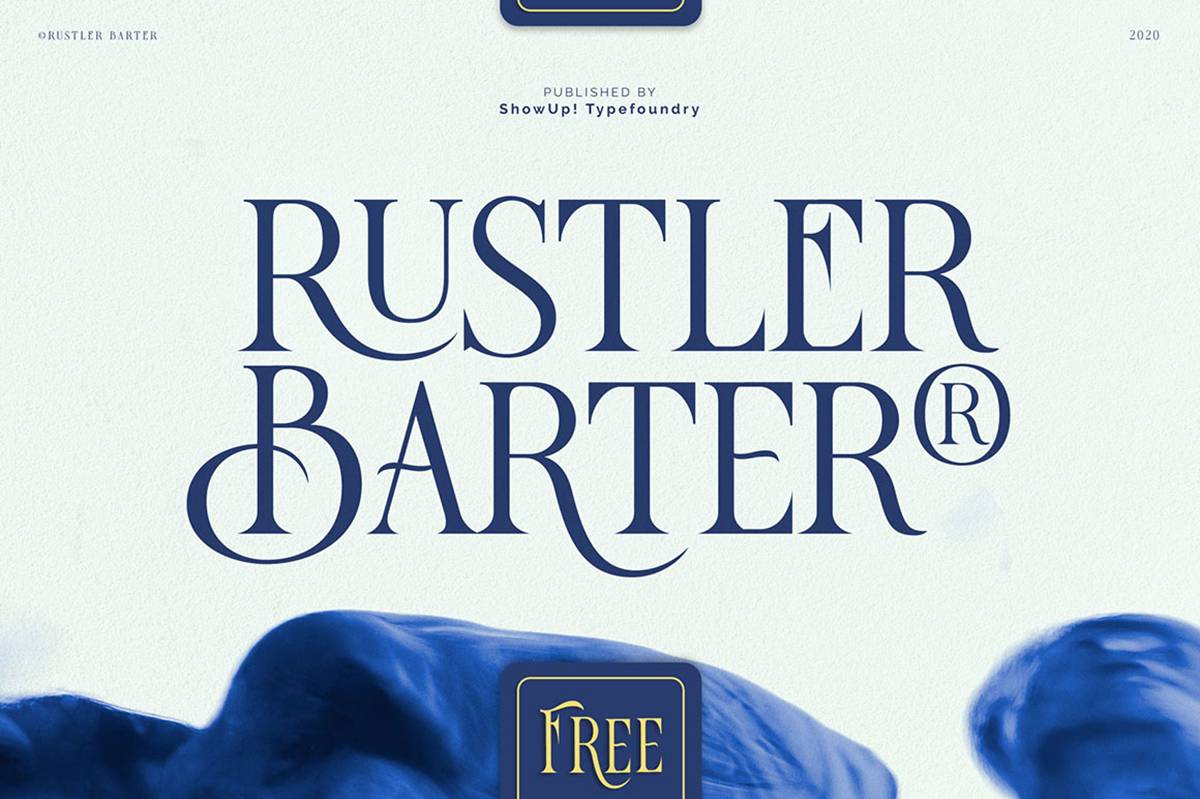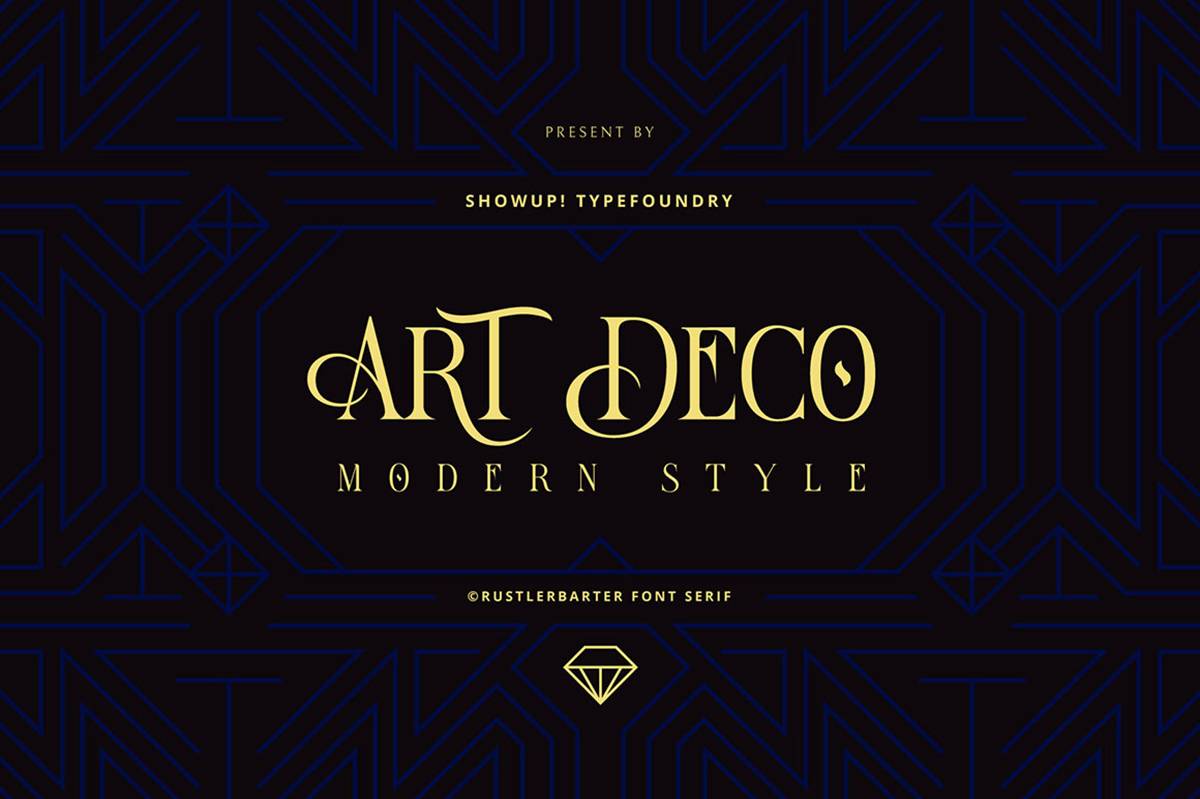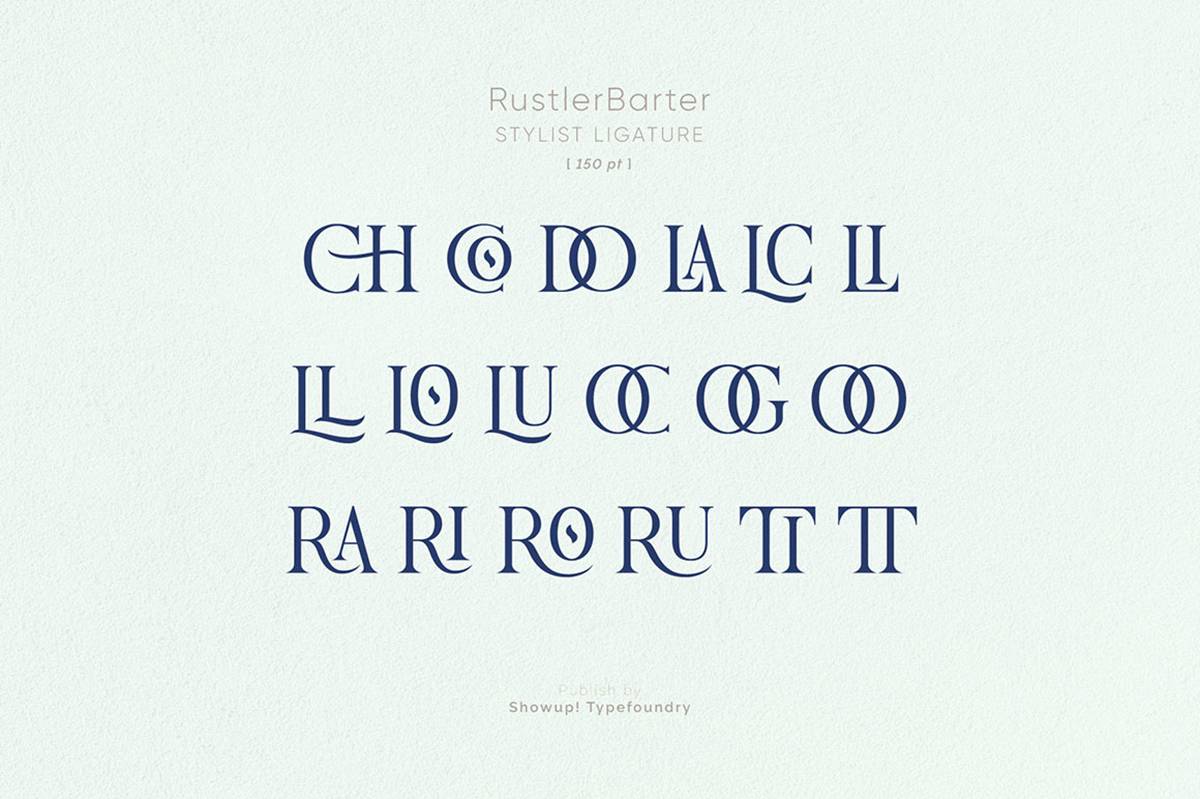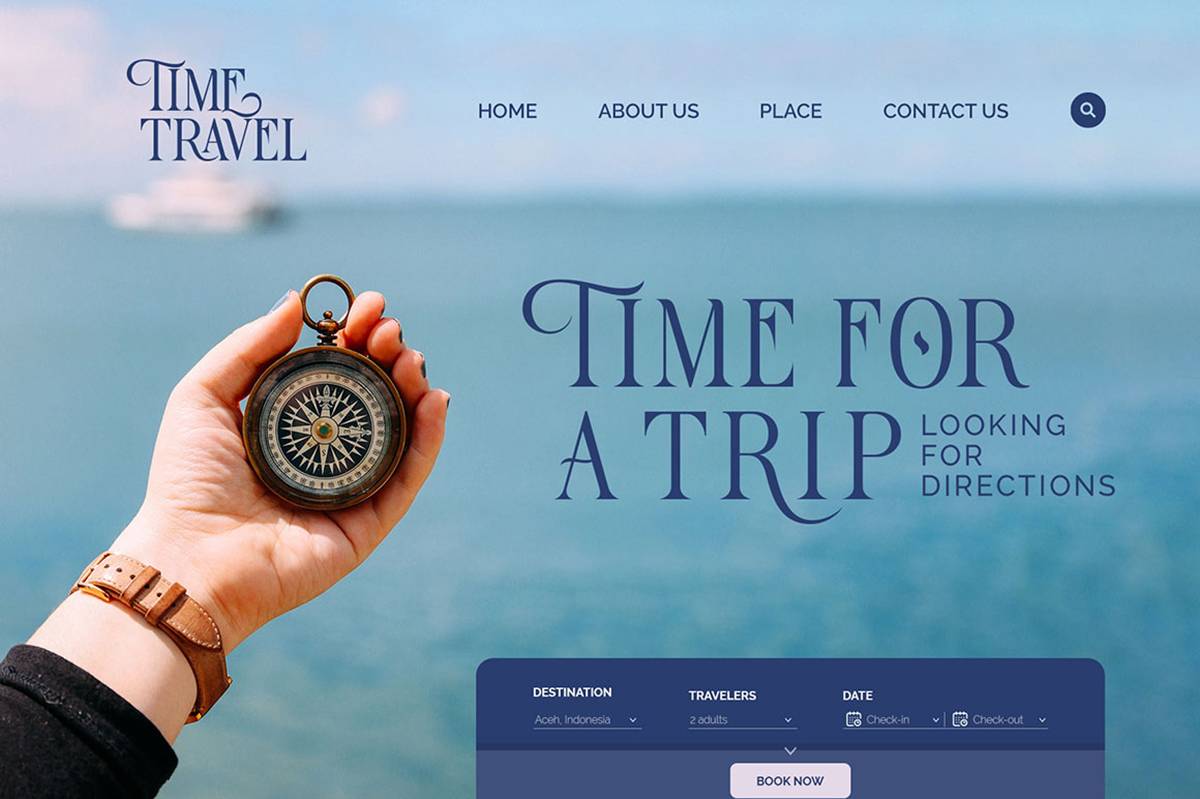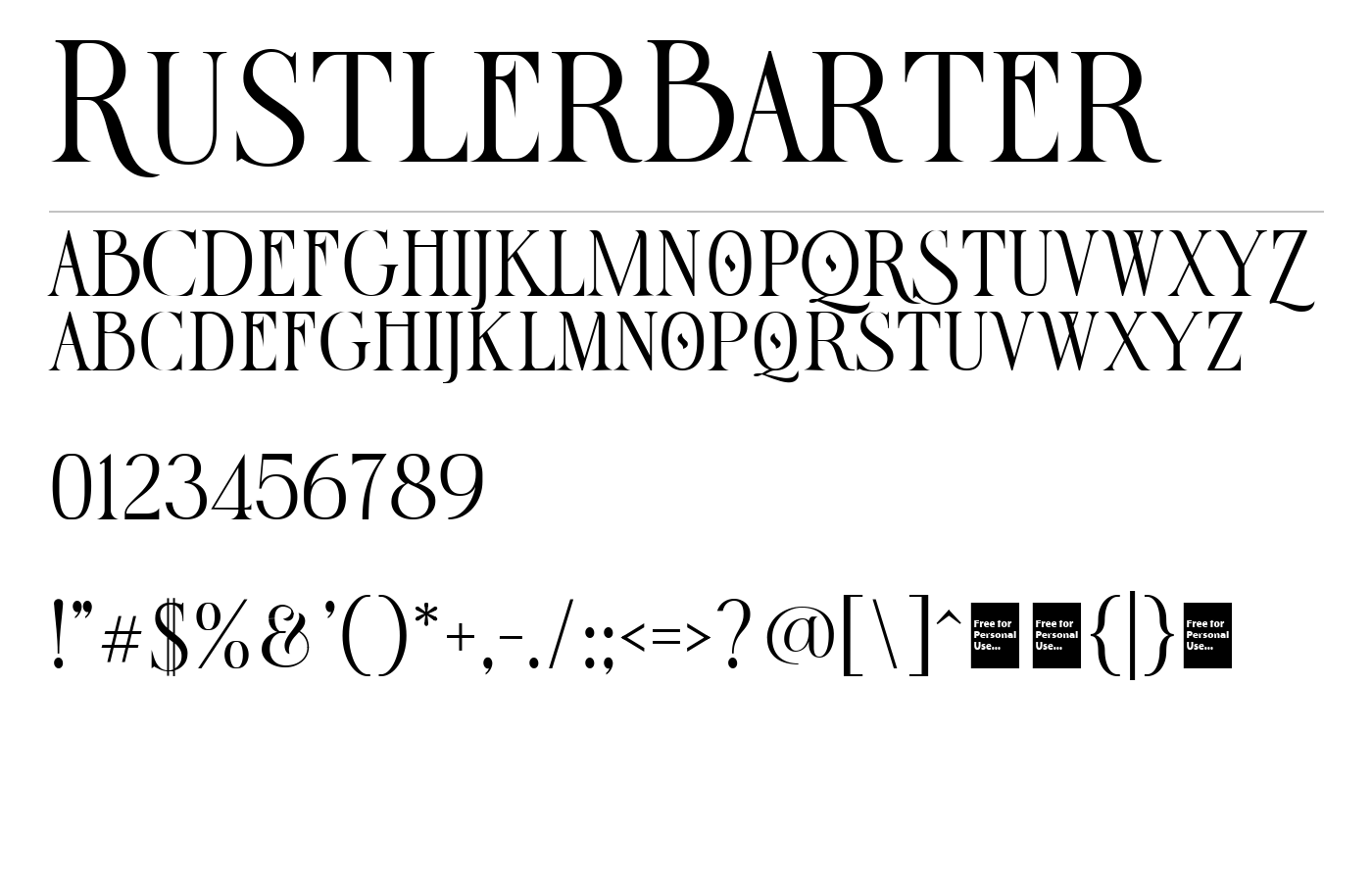
Rustler Barter is a sophisticated serif font with a tall, elegant structure and high contrast between thick and thin strokes, giving it a refined and classic appeal. Its slender, slightly condensed letterforms and distinctive, sharp serifs create a stylish yet readable look, ideal for luxury branding, editorial headlines, and fashion-focused design. This font conveys a sense of elegance and timelessness, making it perfect for projects that aim to combine tradition with modern refinement.
Rustler Barter Font
About Rustler Barter Font
| Font family | Rustler Barter Font |
| Release date | 2020-02-10 |
| Designer | Aulia Rahman, Hendra Maulia |